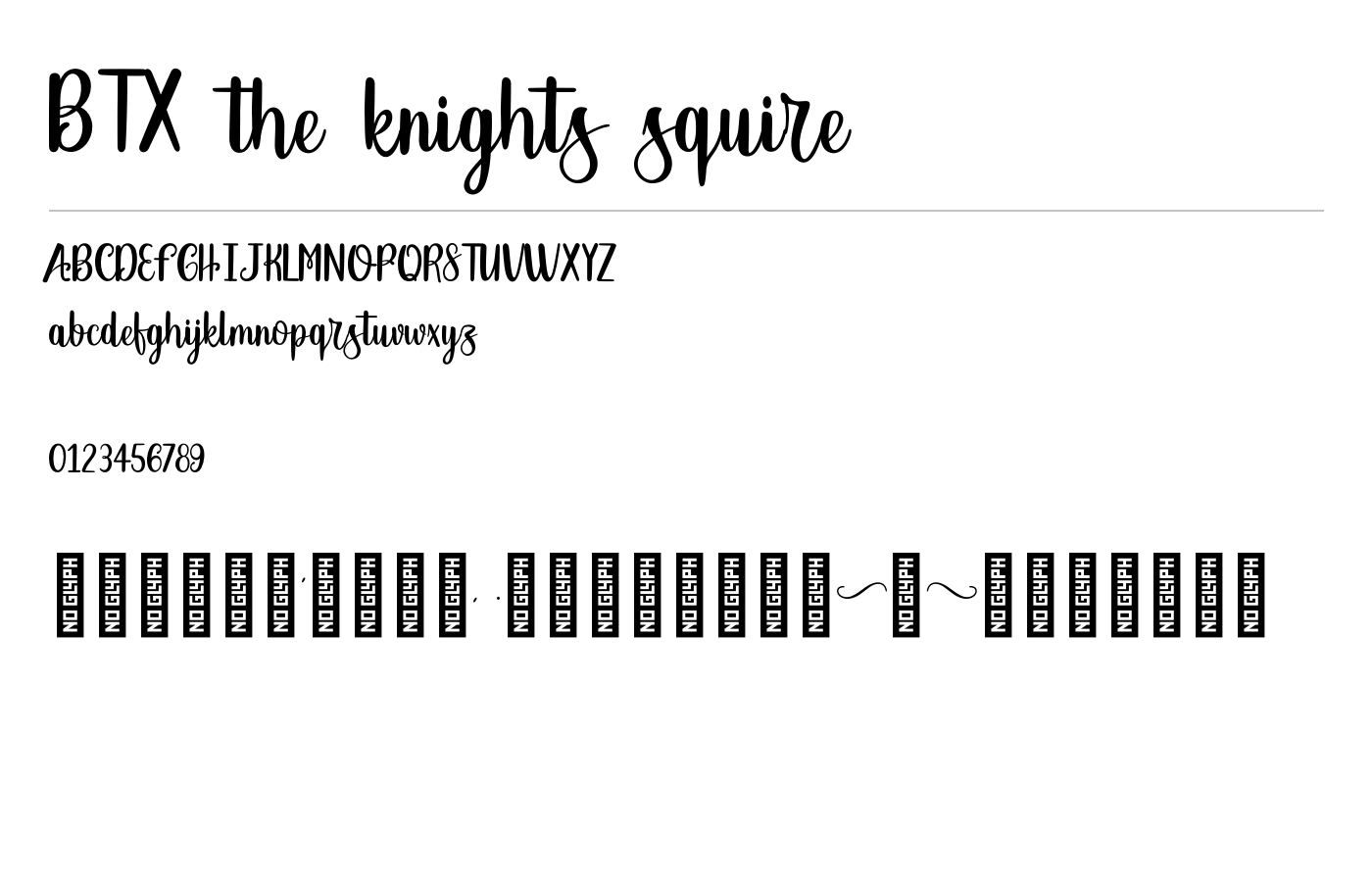
BTX-the-knights-squire is a playful and elegant handwritten script font characterized by its tall, narrow letterforms and smooth, flowing strokes. It features a casual yet refined feel with unique curled details, making it ideal for creative branding, invitations, and feminine designs. This font works best in display settings where its charming personality can shine, such as logos, greeting cards, and stylish headlines.
BTX-the-knights-squire Font
About BTX-the-knights-squire Font
| Font family | BTX-the-knights-squire Font |
| Designer | Betwixt Designs |